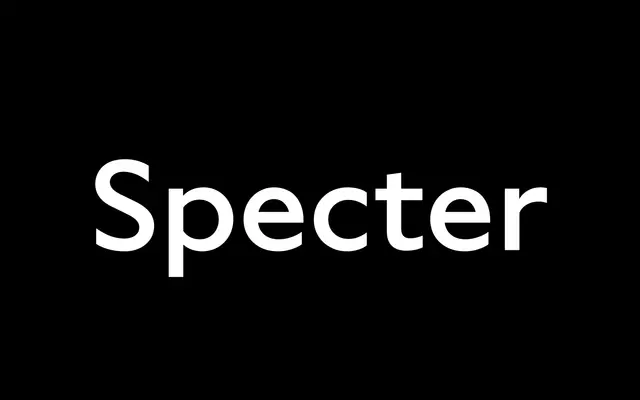
Specter
MCKL · Jeremy Mickel · 2017
A constructed geometric sans by Jeremy Mickel with 90-degree sheared terminals and true italics, referencing Granby, Metro and Tempo.
Drawing on early 20th-century geometric sans serifs, Specter eschews calligraphic influence in favour of shapes that resemble cut paper laid flat, with flat terminals enabling tight typesetting. Six weights with roman and italic styles cover text and display use, while Specter Inline Ultra adds a dramatic display option with a single stroked weight. A friendly lowercase and distinctive italic give the family a refined character that sits somewhere between historical revival and original construction.
Specter is a constructed geometric sans with 90-degree sheared terminals and true italics, drawing directly from early 20th-century geometrically-constructed sans serifs such as Granby, Metro, and Tempo.